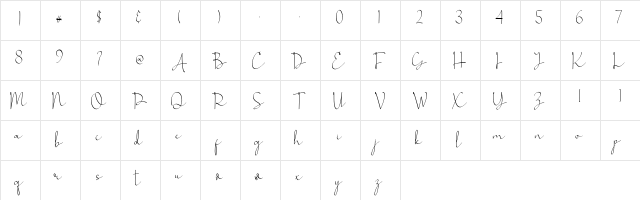
Gumush Regular
Design Context for Gumush Typeface
Gumush is a composed and adaptable typeface that performs quietly and consistently across a wide range of design contexts.